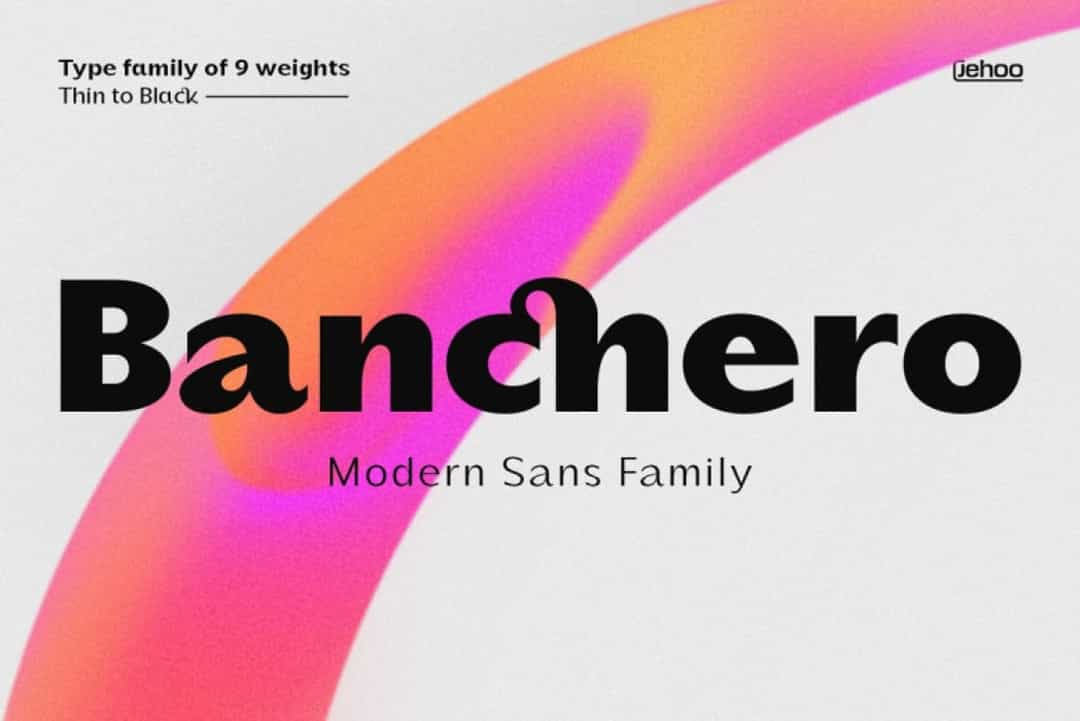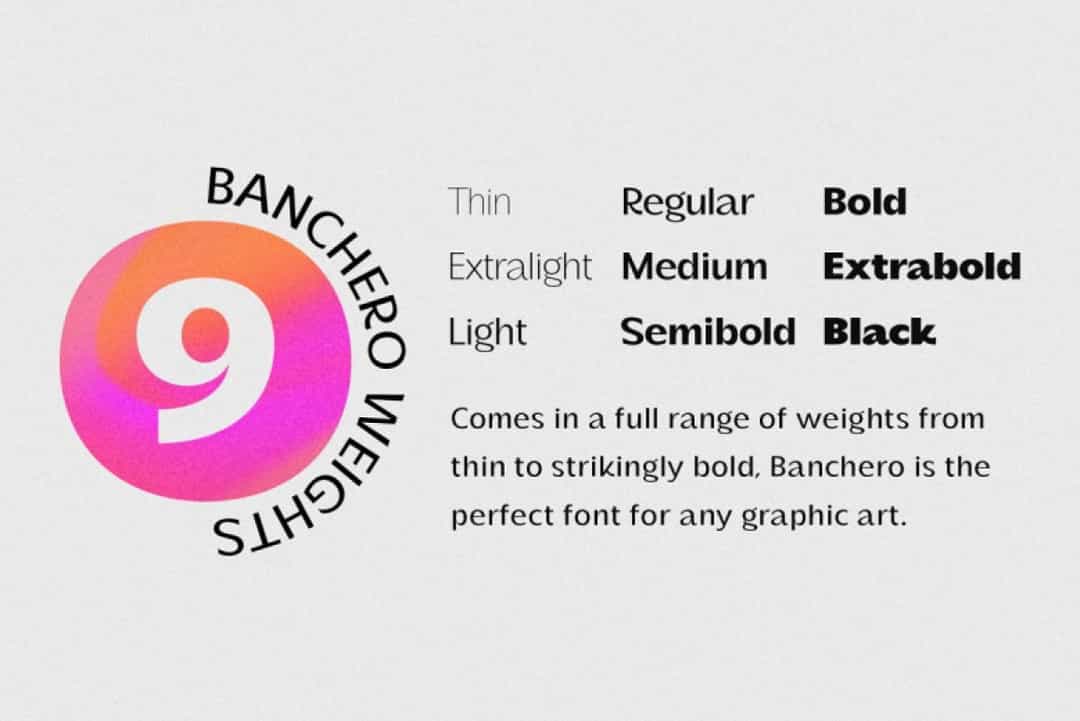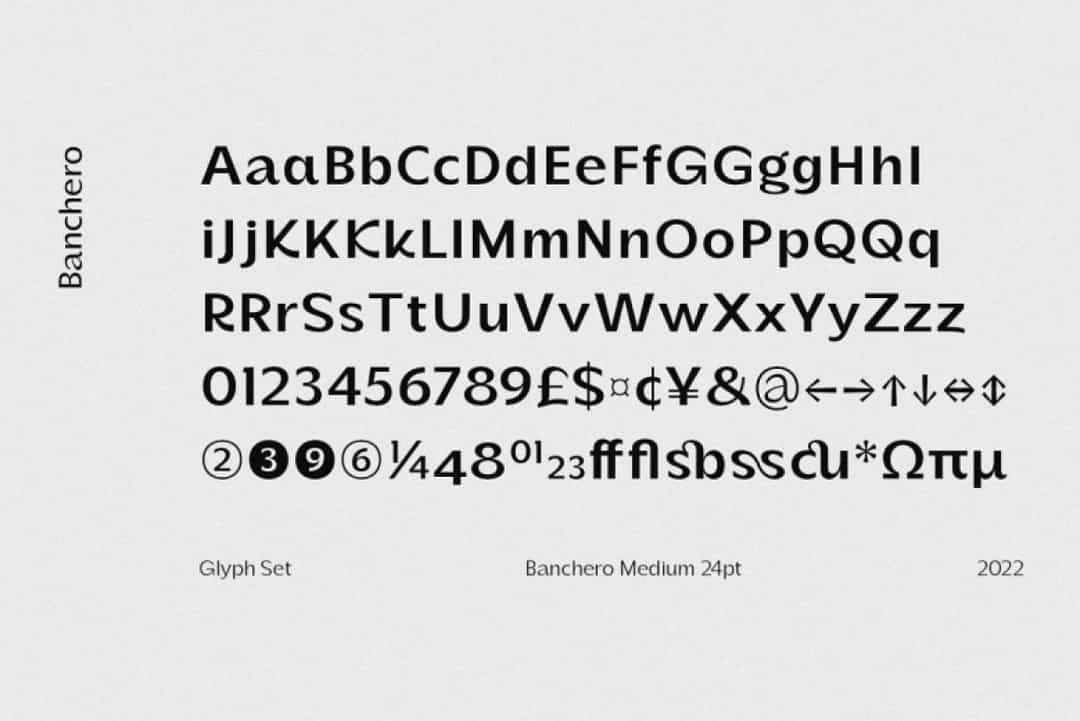
Banchero Font is a tribute to vintage designs, offering comforting elegance in modern typography. The robust sans base features delicate and graceful letter ligatures. Ideal for all design requirements such as headlines, body text editorials or posters; Banchero will stand out!